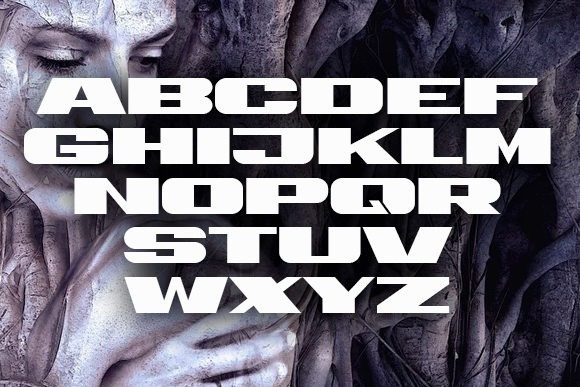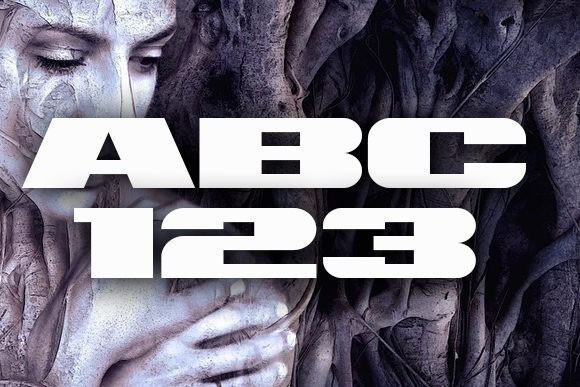
Retrive Font
Retrive Display Font
This is a display serif font manufactured by vladimirnikolic. It focuses elegant geometry with differing lines and join point. Retrive is suitable for headlines, posters, signages, just anything that requires a creative Look. And it’s ready to make an enduring impression on your design projects.